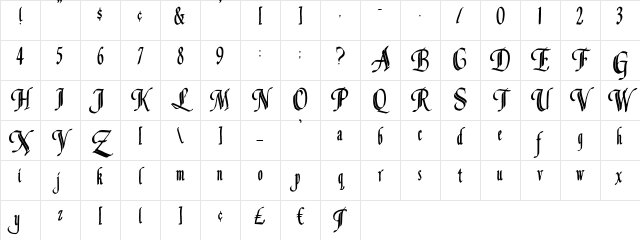
Louvaine normal
Design Context for Louvaine
Louvaine is a composed and adaptable typeface that performs quietly and consistently across a wide range of design contexts.